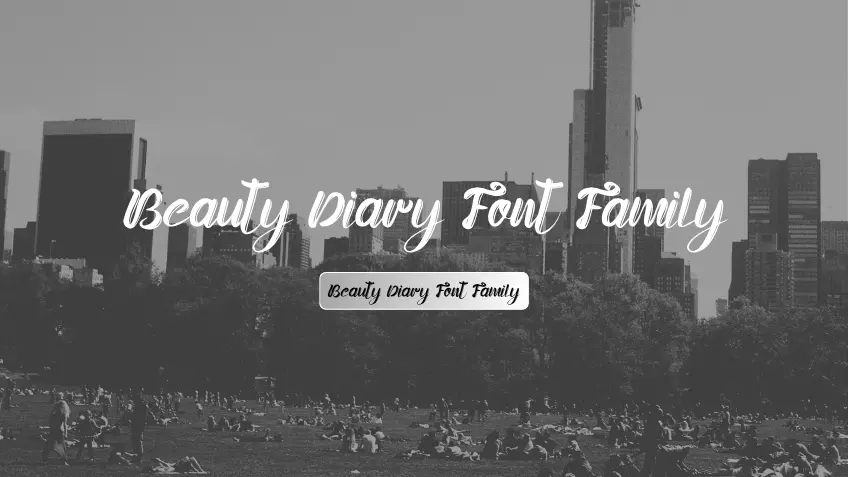
Beauty Diary Regular
The font Beauty Diary Regular, designed by Thomas Aradea, falls under the Script category & Beauty Diary font family. Its smooth, flowing letterforms make it a versatile choice for projects that require both elegance and readability. Beauty Diary is particularly well-suited for Packaging, Wedding Invitations, Body Text, Valentine, Titles, Social Media, Event flyers, Event Stationery and Creative. With its balance of simplicity and decorative appeal, this font brings a polished touch to both personal and professional designs.